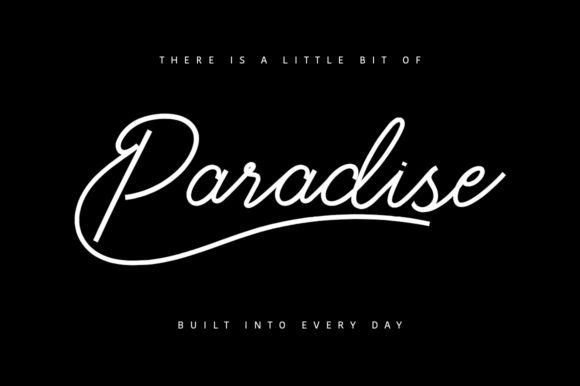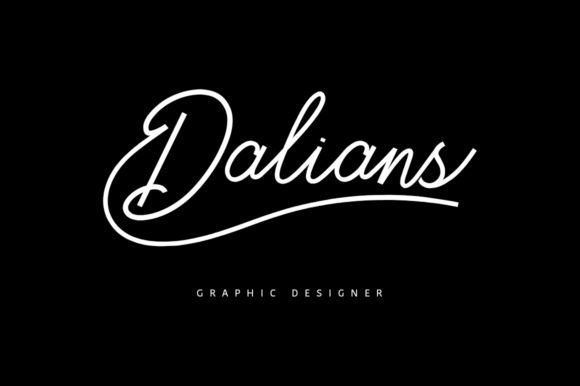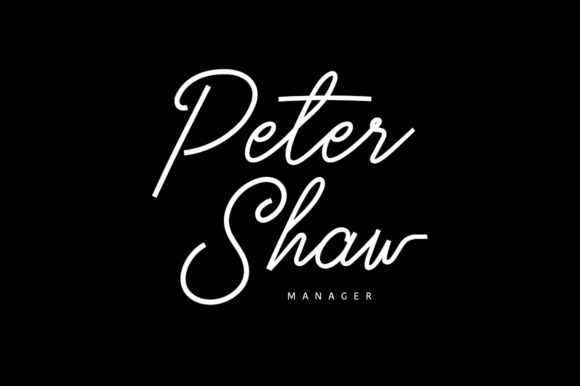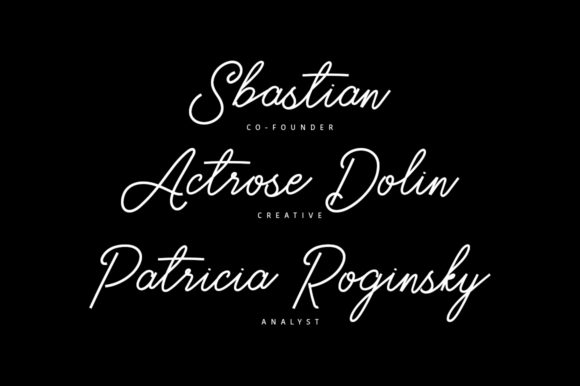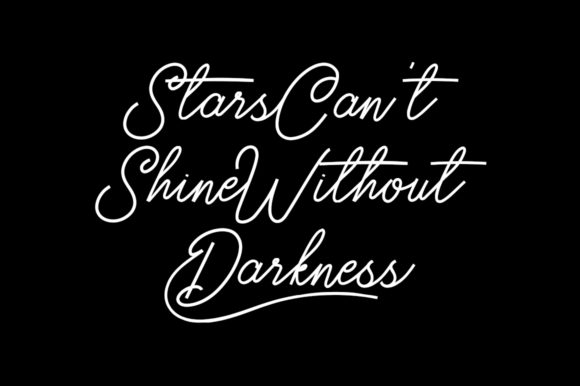
Baltism Font: Elevate Your Designs with Elegance and Sophistication
In the world of typography, a well-crafted font can make all the difference in elevating your design to new heights. Introducing Baltism Font, a distinct and elegant script font that seamlessly blends traditional influences with a contemporary aesthetic. Whether you’re a designer, craftsperson, or simply a creative enthusiast, Baltism Font is the perfect addition to your typography arsenal.
What is Baltism Font?
Baltism Font is a carefully crafted script font that draws inspiration from traditional typography while infusing it with a modern twist. The result is a unique and sophisticated font that exudes elegance and refinement. With its flowing lines, intricate details, and beautiful ligatures, Baltism Font is sure to add a touch of luxury to any design project.
Key Features of Baltism Font
- Distinct and Elegant Design: Baltism Font boasts a distinctive and elegant design that sets it apart from other script fonts. Its unique blend of traditional and modern elements makes it perfect for designers looking to add a touch of sophistication to their work.
- Versatile and Adaptable: Baltism Font is incredibly versatile and can be used for a wide range of design applications, including signatures, stationery, logos, typography quotes, magazine or book covers, website headers, clothing, branding, packaging design, and more.
- High-Quality and Detailed: Baltism Font is meticulously crafted with attention to detail, ensuring a high-quality font that will elevate your designs to new heights.
Use Cases for Baltism Font
Baltism Font is an incredibly versatile font that can be used in a variety of design applications. Here are some use cases to get you started:
- Signature and Stationery: Add a touch of elegance to your signature and stationery with Baltism Font. Perfect for business cards, letterheads, and more.
- Logo and Branding: Create a lasting impression with Baltism Font. Use it to craft a unique and memorable logo that reflects your brand’s personality.
- Typography Quotes and Posters: Add a touch of sophistication to your typography quotes and posters with Baltism Font. Perfect for social media, advertising, and more.
- Magazine and Book Covers: Elevate your magazine or book cover with Baltism Font. Its elegant design is sure to grab attention and make your publication stand out.
- Website Headers and UI Design: Use Baltism Font to create stunning website headers and UI designs that reflect your brand’s personality and style.
- Clothing and Merchandise: Add a touch of elegance to your clothing and merchandise with Baltism Font. Perfect for fashion brands, designers, and craftspersons.
- Packaging Design: Elevate your packaging design with Baltism Font. Its sophisticated design is sure to make your product stand out on store shelves.
Why Choose Baltism Font?
With so many fonts available, why choose Baltism Font? Here are just a few reasons why Baltism Font stands out from the crowd:
- Unique and Distinctive Design: Baltism Font boasts a unique and distinctive design that sets it apart from other script fonts.
- High-Quality and Detailed: Baltism Font is meticulously crafted with attention to detail, ensuring a high-quality font that will elevate your designs.
- Versatile and Adaptable: Baltism Font is incredibly versatile and can be used for a wide range of design applications.
- Elegant and Sophisticated: Baltism Font exudes elegance and sophistication, making it perfect for designers looking to add a touch of luxury to their work.
In conclusion, Baltism Font is a distinct and elegant script font that is sure to elevate your designs to new heights. With its unique blend of traditional and modern elements, versatility, and high-quality design, Baltism Font is the perfect addition to any designer’s typography arsenal. Whether you’re a designer, craftsperson, or simply a creative enthusiast, Baltism Font is sure to inspire and empower your creativity.